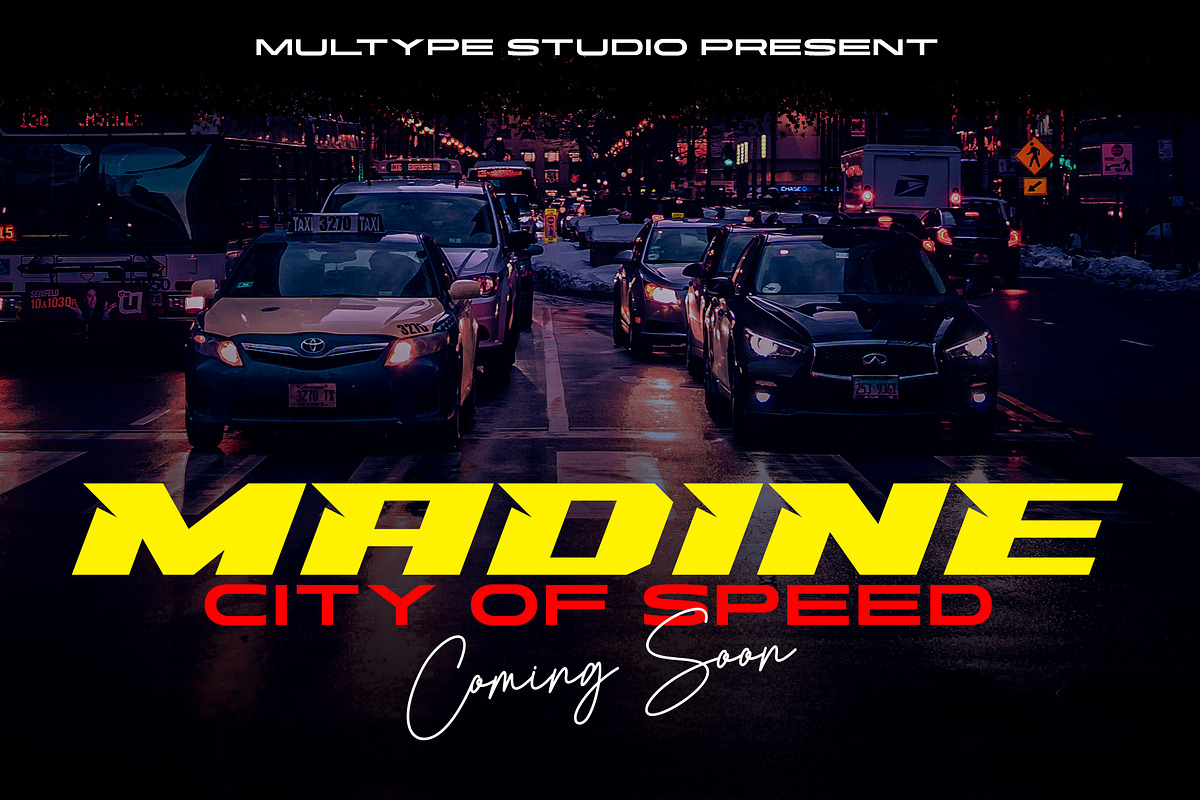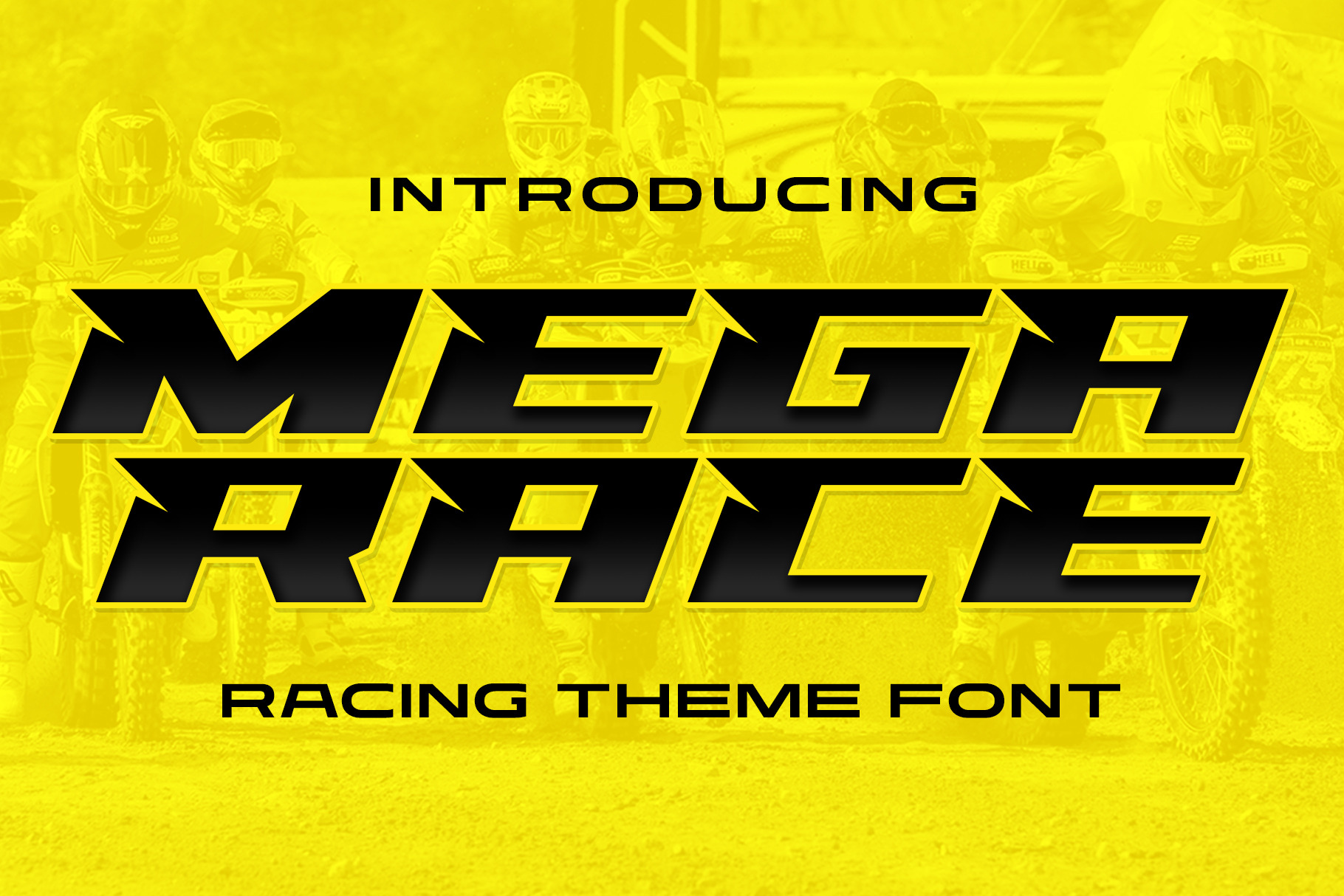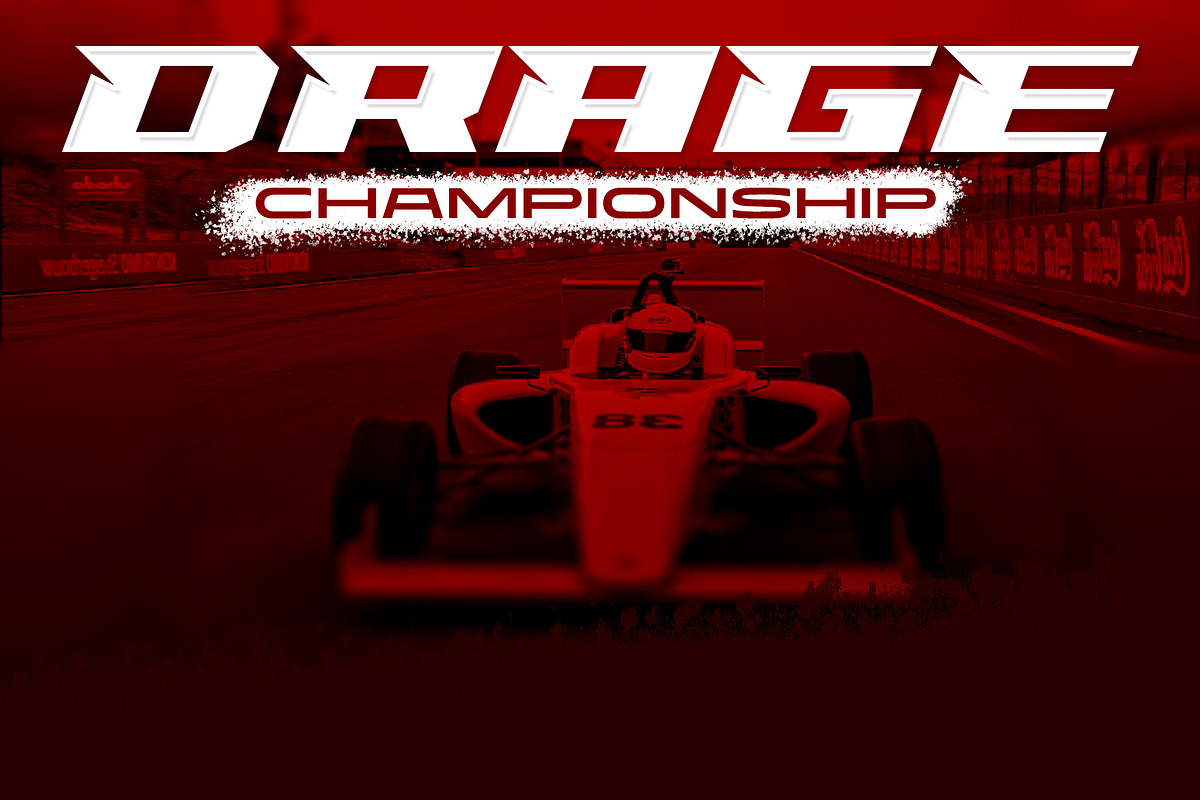
Racing Mega Race Sport Typeface
Racing Mega Race is a font with a racing theme. The bold, slanted shape and precise cut shapes make this font stand out clearly and make it look strong and fast. Racing Mega Race it's perfect for logotype racing product, racing game covers, sports events, automotive posters, automotive magazine covers, branding, product design, labels and other creative project.
- All Caps
- Numbers & Symbols